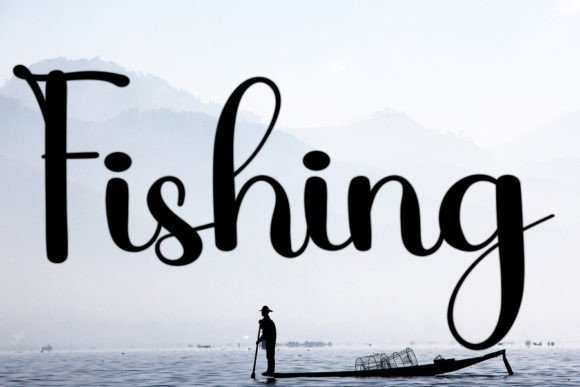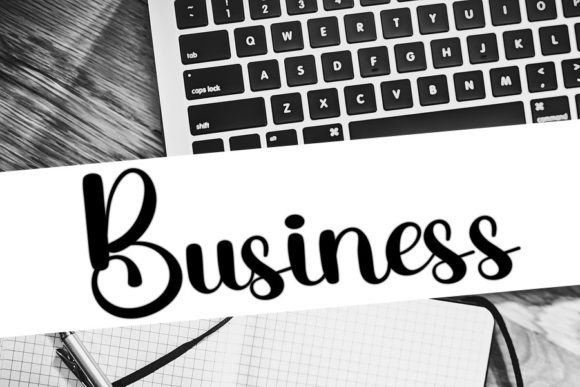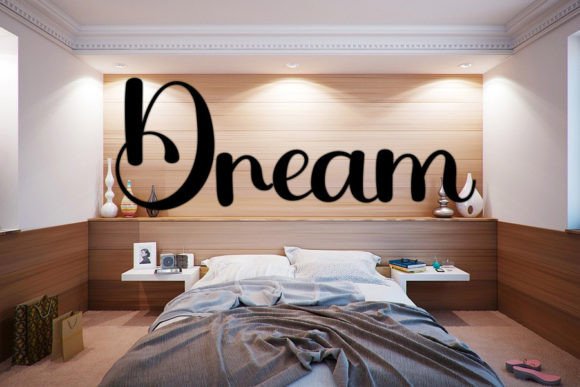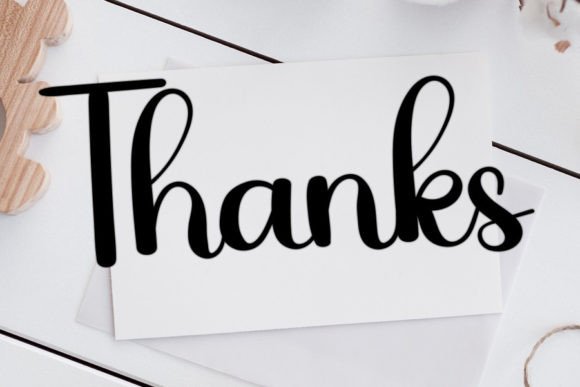
Dolly Font: The Elegant and Charming Choice for Designers and Crafters
Are you looking for a font that exudes elegance and charm? Look no further than the Dolly Font. This beautiful handwritten font is perfect for adding a touch of sophistication to any design project. In this article, we’ll explore the features and benefits of the Dolly Font, and why it’s a popular choice among designers and crafters.
What is Dolly Font?
Dolly Font is a modern script font that features elegant and flowing letterforms. It’s designed to look like handwriting, but with a more refined and polished feel. The font is perfect for creating beautiful and eye-catching designs that require a personal touch.
Features of Dolly Font
Dolly Font has several features that make it a standout choice for designers and crafters. Some of its key features include:
- Elegant and charming design: Dolly Font has a sophisticated and refined design that looks stunning on any project.
- Handwritten feel: The font has a natural, handwritten feel that adds a personal touch to any design.
- Versatile: Dolly Font can be used on a wide range of projects, from wedding invitations and greeting cards to logos and business cards.
- Easy to read: Despite its elegant design, Dolly Font is easy to read and understand, making it perfect for body text and headlines.
Uses of Dolly Font
Dolly Font is a versatile font that can be used on a wide range of projects. Here are some of the most popular uses of the font:
- Wedding invitations: Dolly Font looks stunning on wedding invitations, adding a touch of elegance and sophistication to the design.
- Greeting cards: The font is perfect for creating beautiful and heartfelt greeting cards for special occasions.
- Logos and branding: Dolly Font can be used to create elegant and memorable logos and branding materials.
- Business cards: The font is a popular choice for business cards, adding a touch of professionalism and sophistication to the design.
- Quotes and posters: Dolly Font looks great on quotes and posters, adding a touch of elegance and style to the design.
Why Choose Dolly Font?
There are many reasons why designers and crafters choose Dolly Font for their projects. Here are some of the top reasons:
- Unique and elegant design: Dolly Font has a unique and elegant design that sets it apart from other fonts.
- High-quality: The font is designed to be high-quality and print-ready, ensuring that it looks great on any project.
- Versatile: The font can be used on a wide range of projects, making it a great addition to any design library.
Tips for Using Dolly Font
Here are some tips for using Dolly Font in your design projects:
- Use it sparingly: Dolly Font is a elegant and sophisticated font, so use it sparingly to avoid overwhelming the design.
- Pair it with other fonts: The font pairs well with other fonts, so experiment with different combinations to find the perfect look.
- Adjust the size and color: Adjust the size and color of the font to suit the design and project.
- Experiment with different effects: Experiment with different effects, such as embossing or foil stamping, to add texture and interest to the design.
Dolly Font is a beautiful and elegant font that’s perfect for designers and crafters who want to add a touch of sophistication to their projects. With its elegant design, versatility, and ease of use, it’s no wonder that Dolly Font is a popular choice among designers and crafters. Whether you’re creating wedding invitations, greeting cards, logos, or business cards, Dolly Font is a great choice.